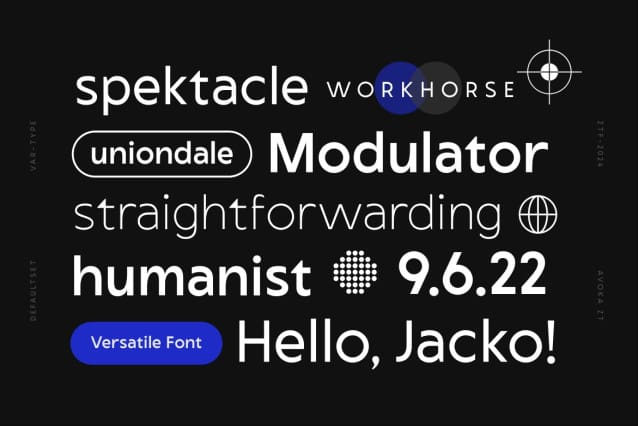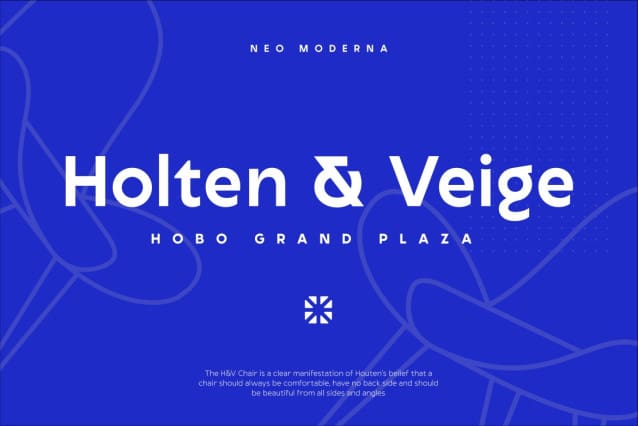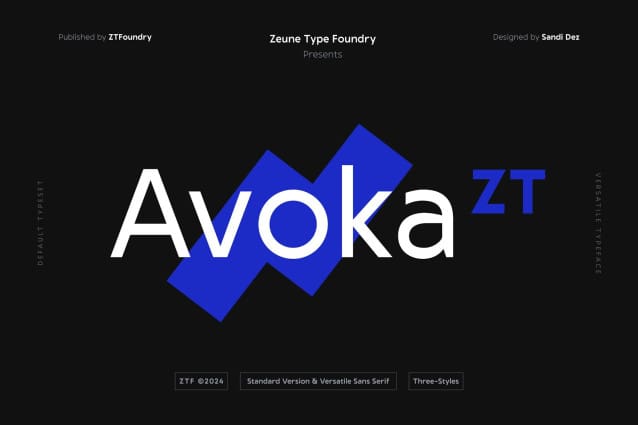
AvokaZT Font
AvokaZT Font, combines the clean lines of geometric shapes with the subtle warmth of humanistic design, providing a versatile typeface for any project. This variable font lets you easily adjust the weight from delicate, thin, regular, and bold statements, all with the click of a dial.
Inspired by classic geometric sans-serif patterns, it features curves and subtle details that add warmth and readability. Its clean lines and consistent letter shapes give it a modern and sophisticated touch.
Effortlessly adjust the weight from thin to bold, opening up endless typographic possibilities. The fonts are suitable for branding, websites, UI/UX design, editorial layouts, posters, headlines, etc.